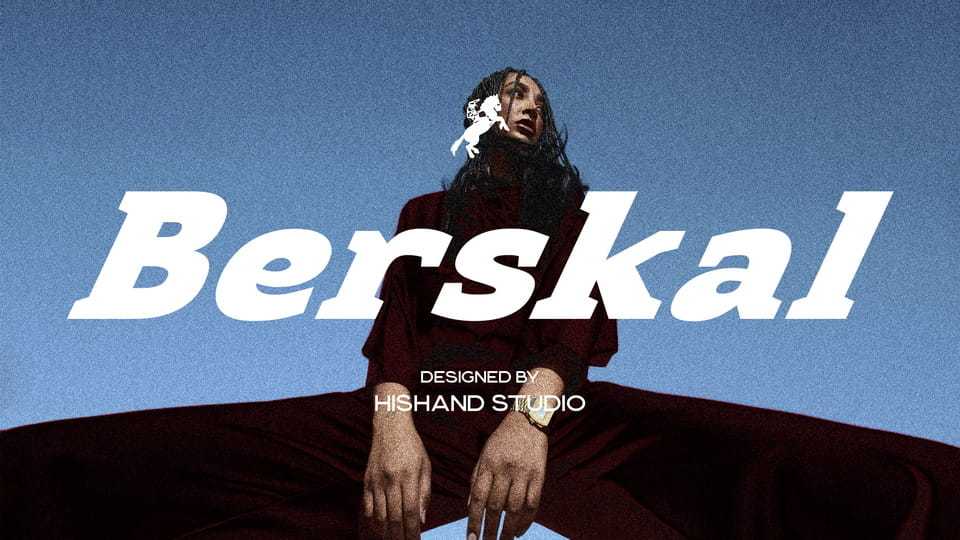
Download Berskal font, a bold serif display typeface with a confident and expressive character. Its strong letterforms and angled details create a dynamic look that feels modern while still rooted in classic serif structure.